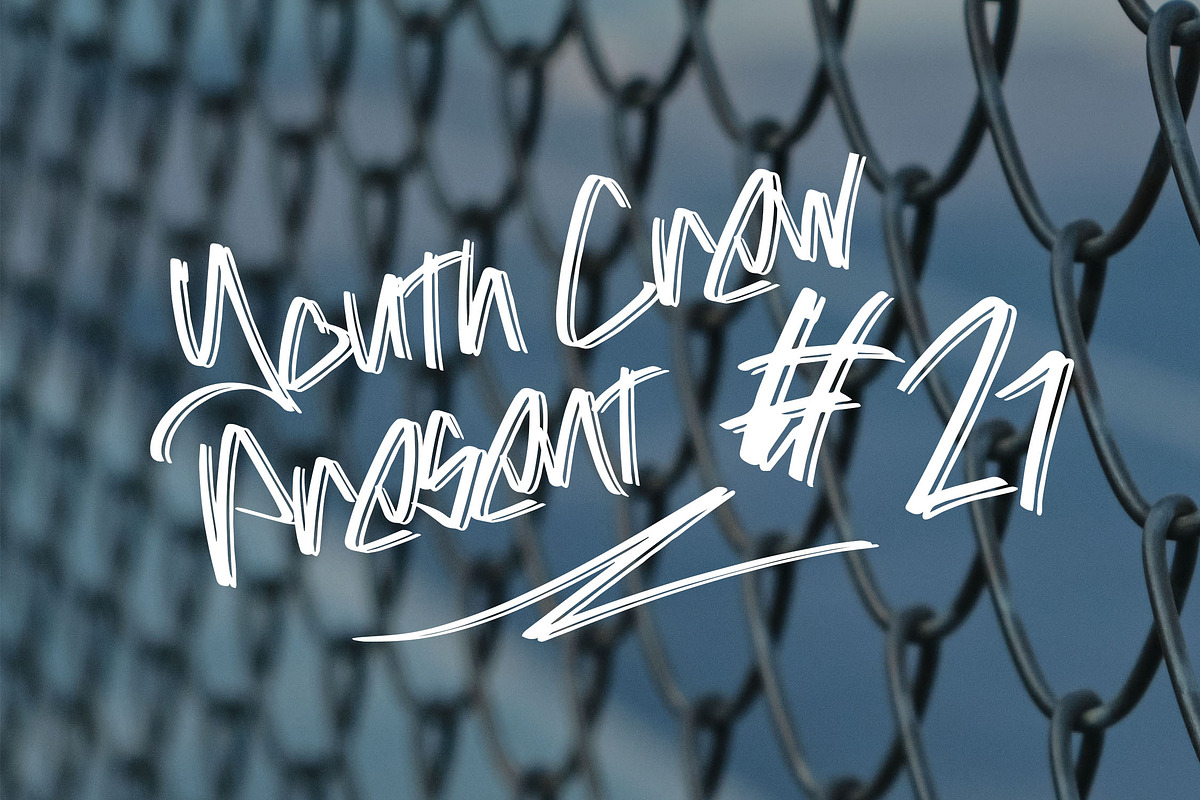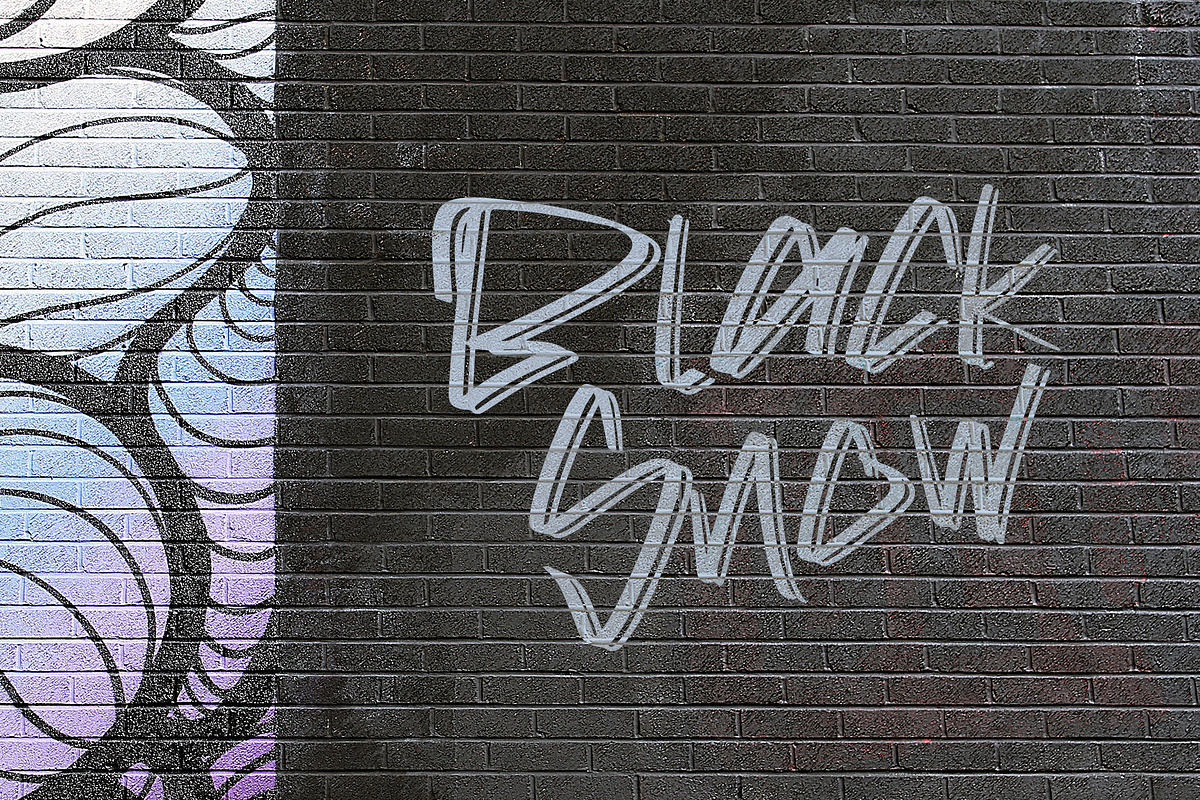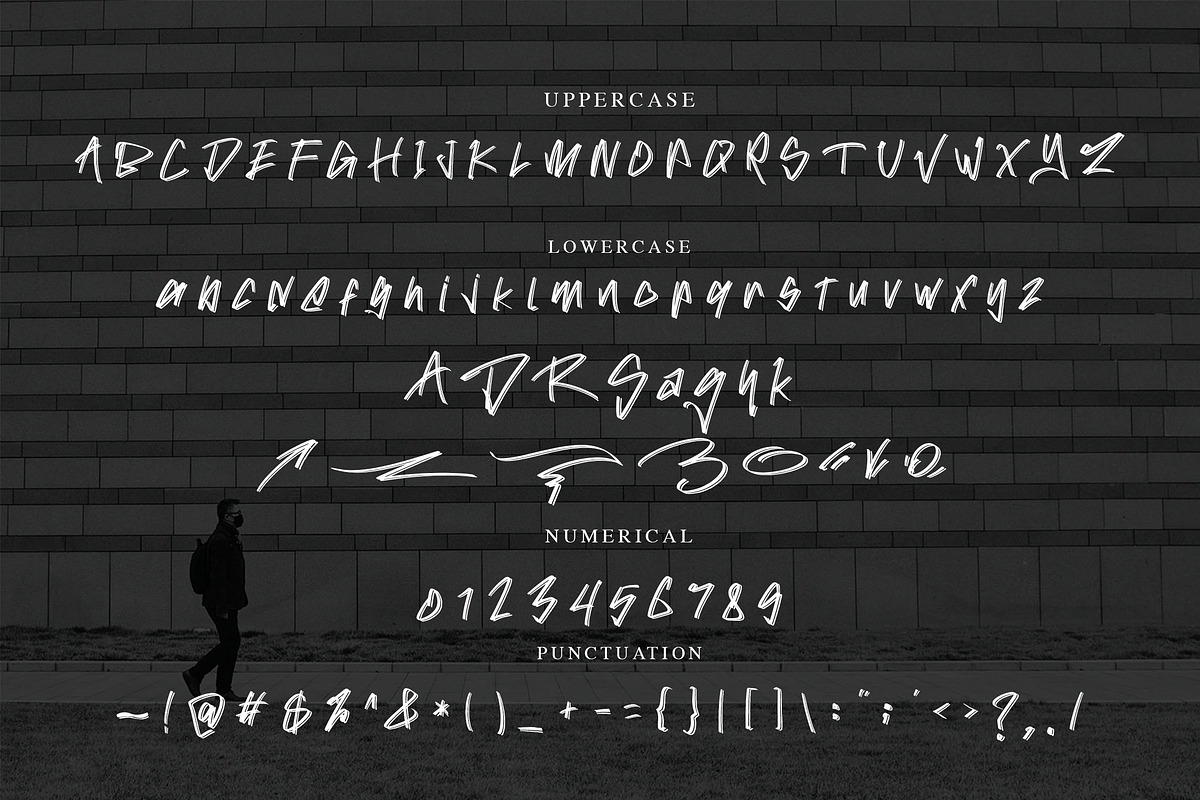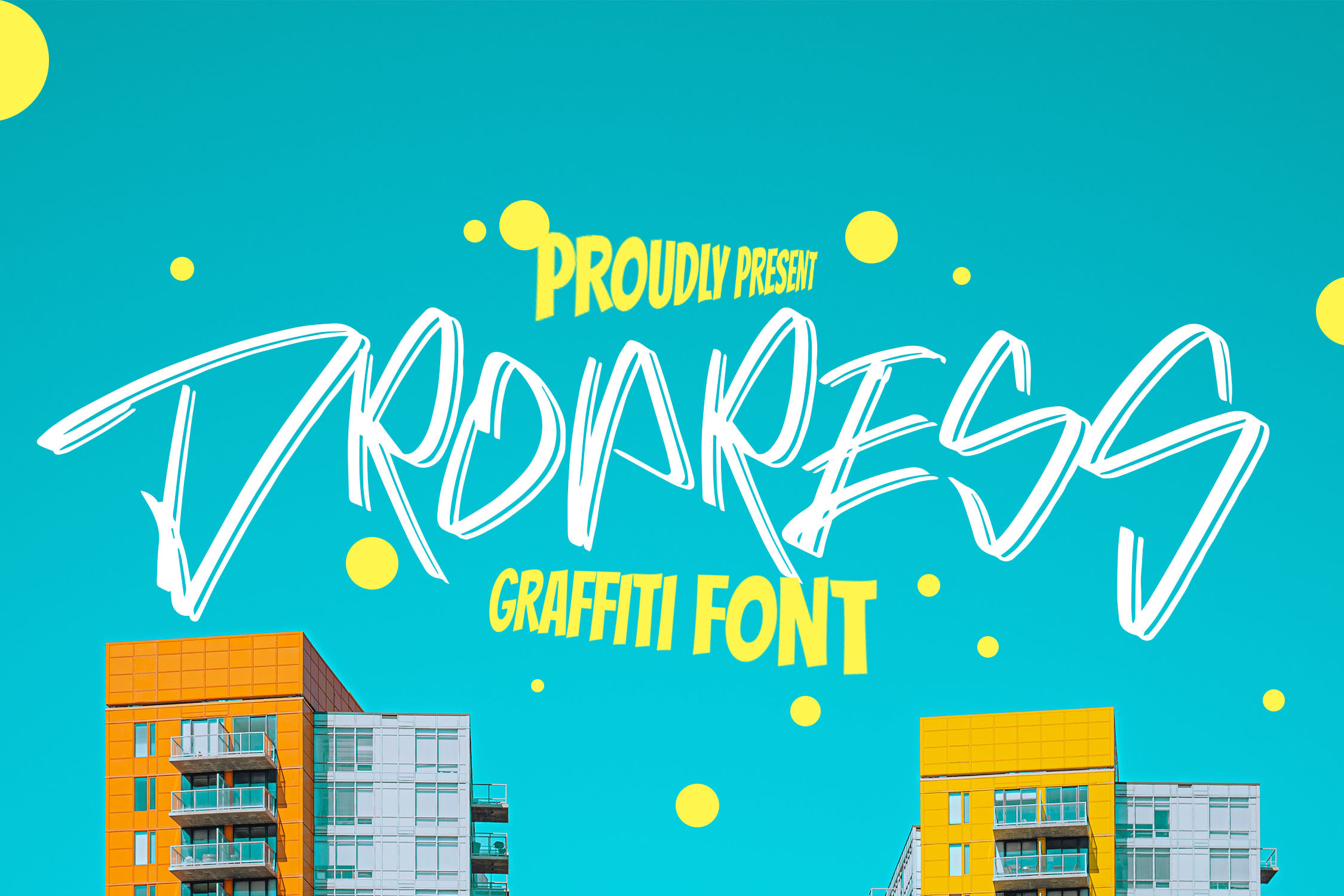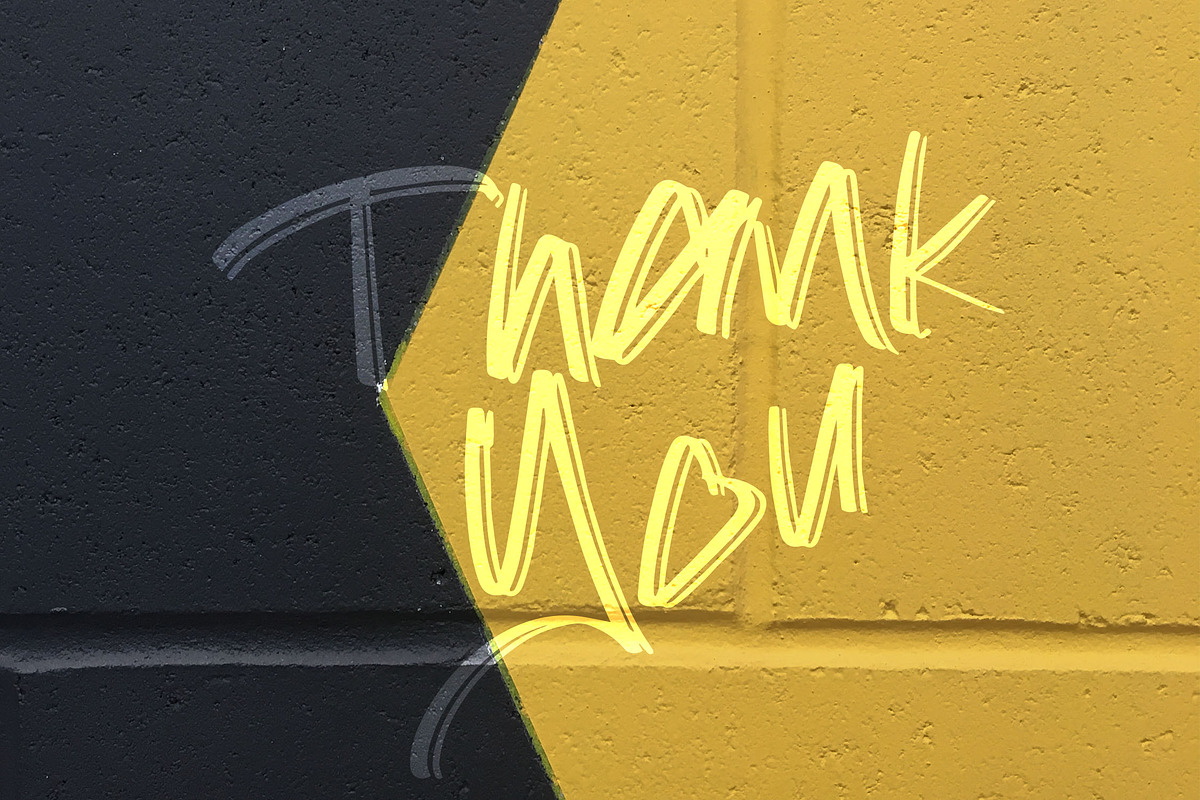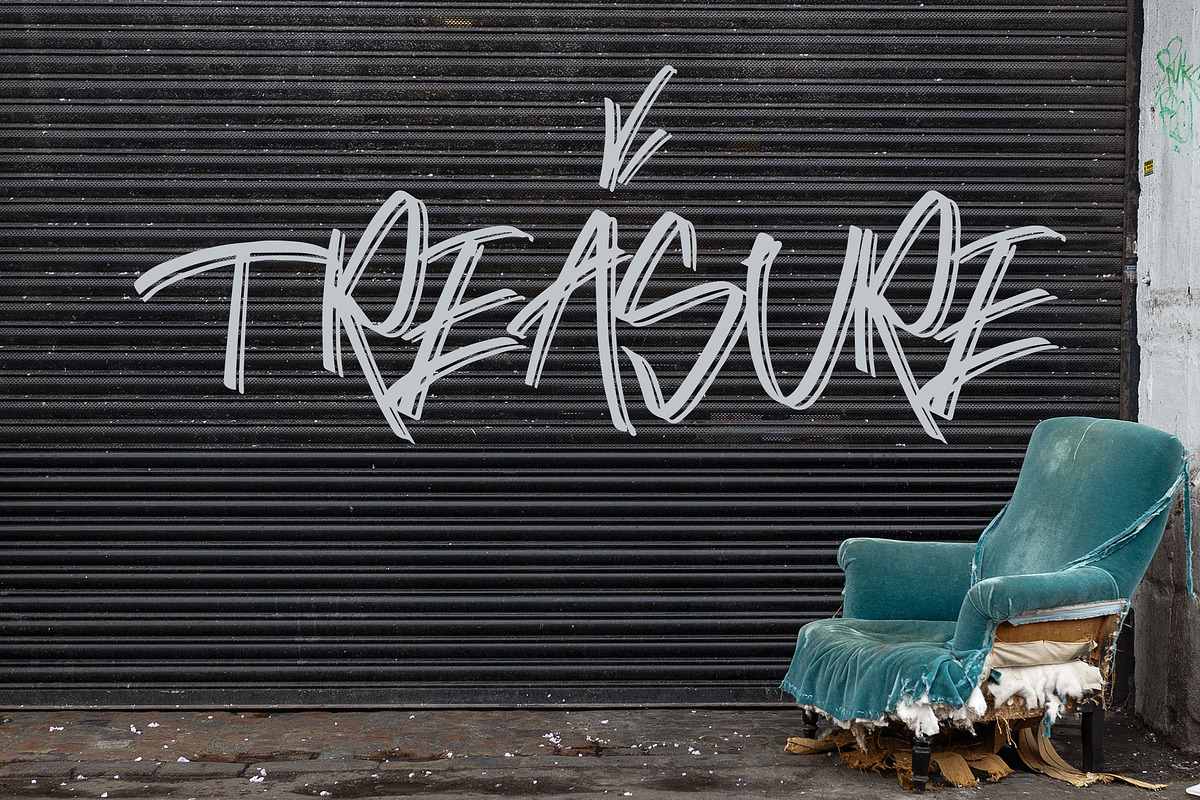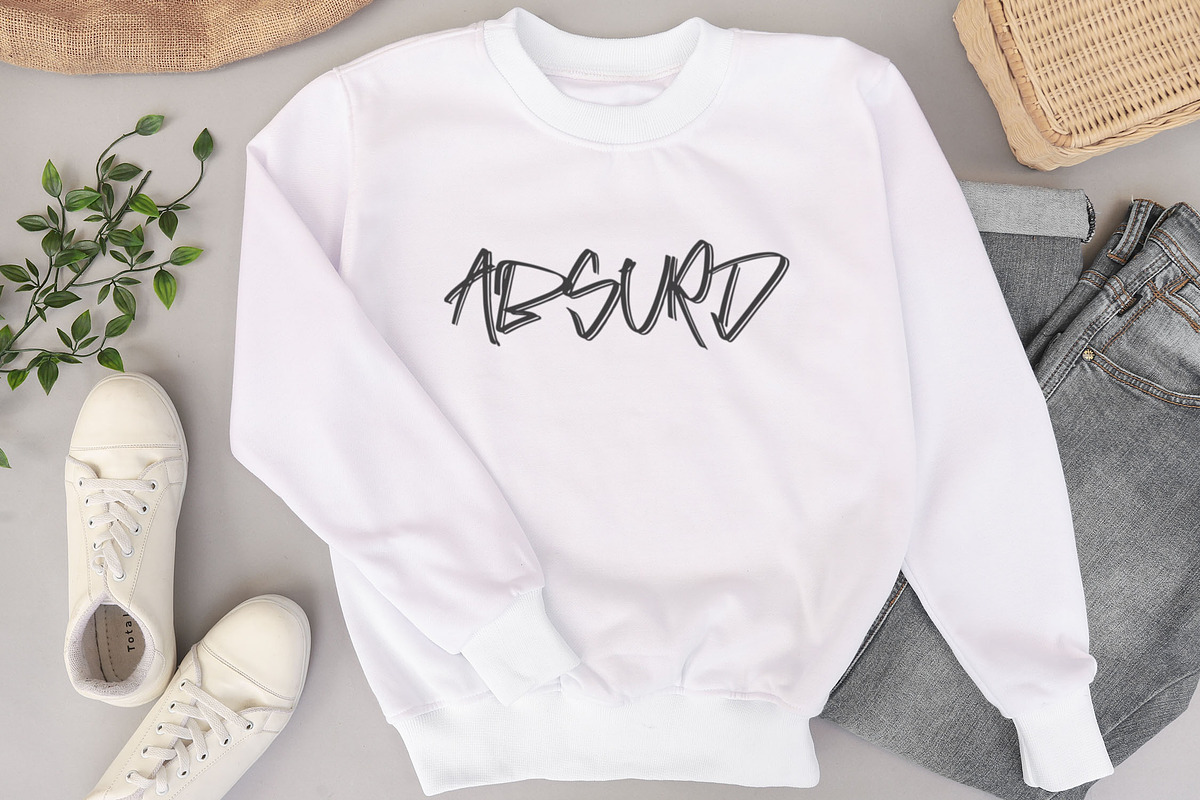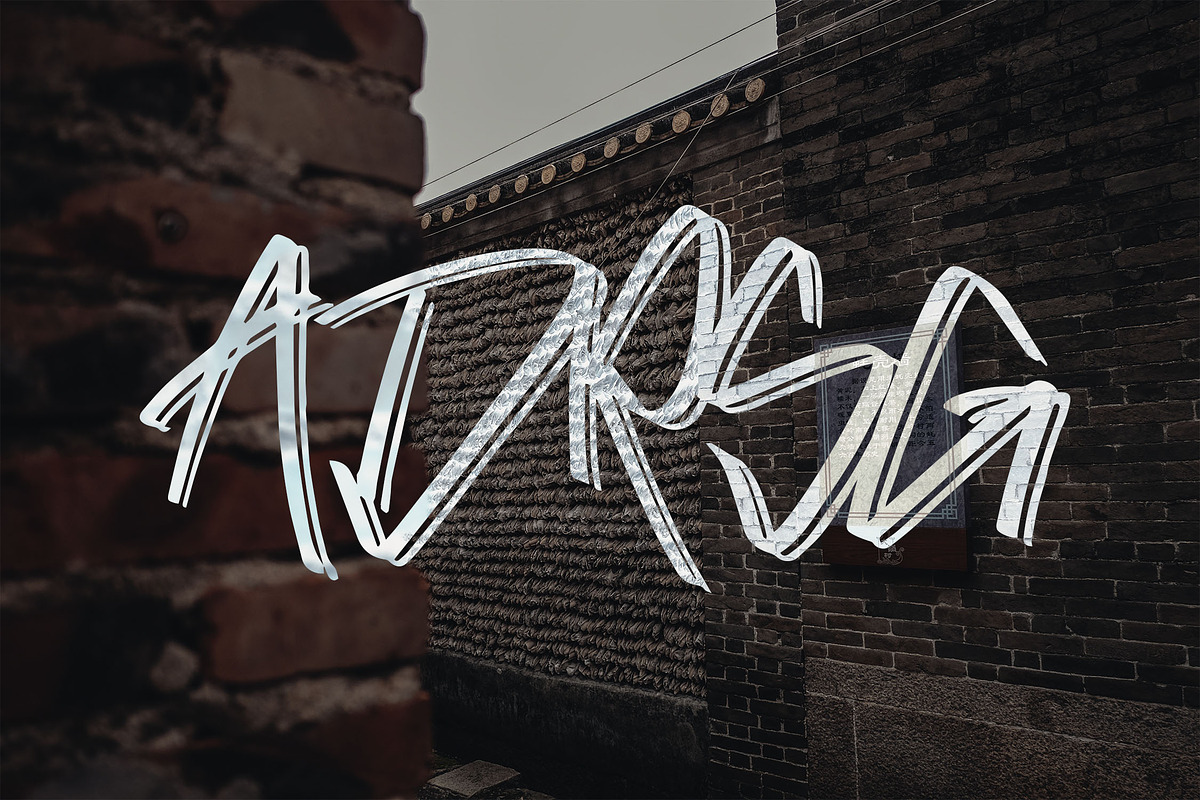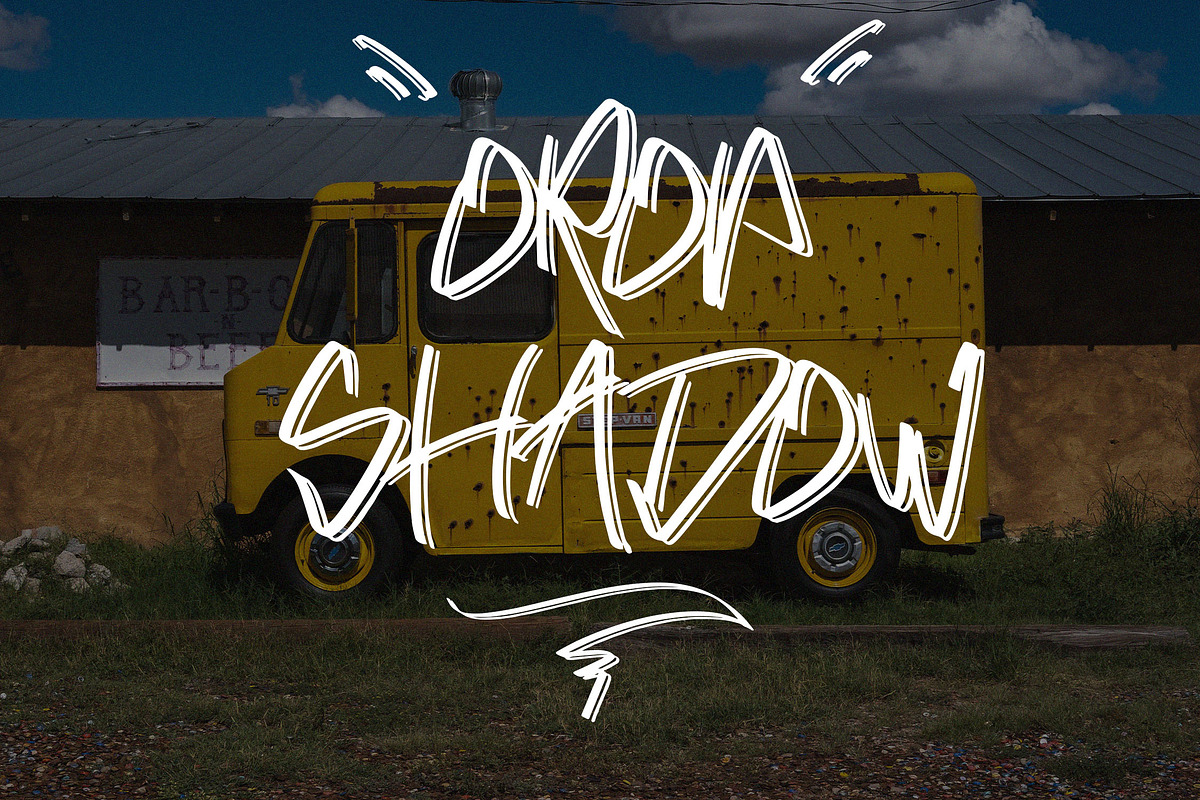
DROPRESS - Graffiti Font
DETAILS
DROPRESS is a Graffiti font with scratch brush style that is very nice for the publication needs of street fashion, magazines, t-shirt design, and can also be used as a Graffiti logotype. This font is designed with a very beautiful graffiti style with various features in it. Made with hand scratches directly and then processed into font processing software.
- Stylistic Alternate